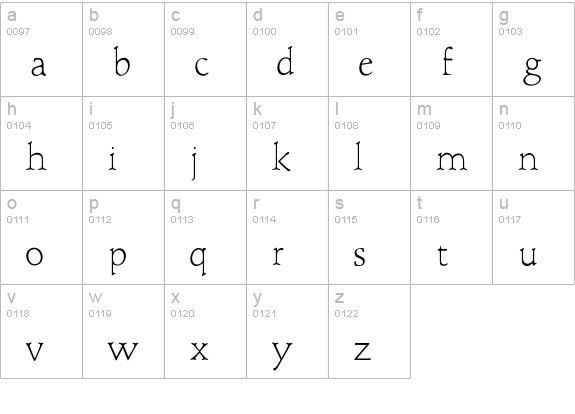
FineTextLight Font Details
FineTextLight is a versatile and elegant font that exudes a sense of sophistication and modernity. Its clean and refined design makes it perfect for a wide range of projects, from branding to editorial design. The delicate lines and balanced proportions of FineTextLight create a harmonious and polished look that is sure to elevate any design. This font is not only visually appealing but also highly functional, making it suitable for both print and digital applications. Whether you are designing a sleek website, crafting a professional brochure, or creating a stylish logo, FineTextLight is sure to make your text stand out with its subtle sophistication. What's even better is that FineTextLight is available for free download at FontsMarket.com. You can easily access this beautiful font and enhance your projects with its timeless appeal. Don't miss out on the opportunity to add FineTextLight to your font collection and bring a touch of elegance to your designs.